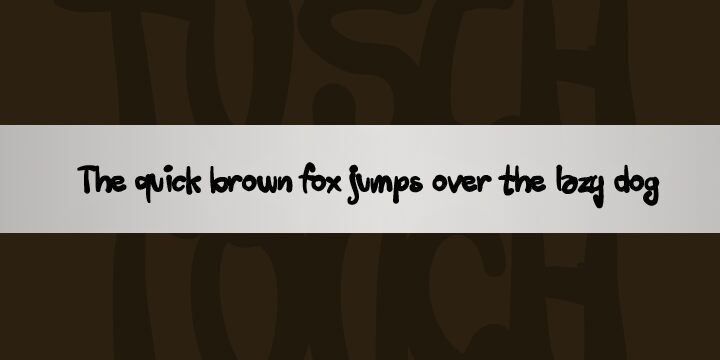
Tusch Touch 3
Tusch Touch 3 by Måns Grebäck is a free graffiti font with swollen, irregular strokes and an unruly painted silhouette. The letters crowd together through looping joins, pinched openings, and abrupt changes in width.
Streetwear branding and music posters suit its dense lettering, which resembles a quickly drawn tag rather than polished type. It also fits skateboard graphics and event merchandise with an underground edge. In magazines, the distorted forms can become expressive display lettering for culture features or artist profiles.